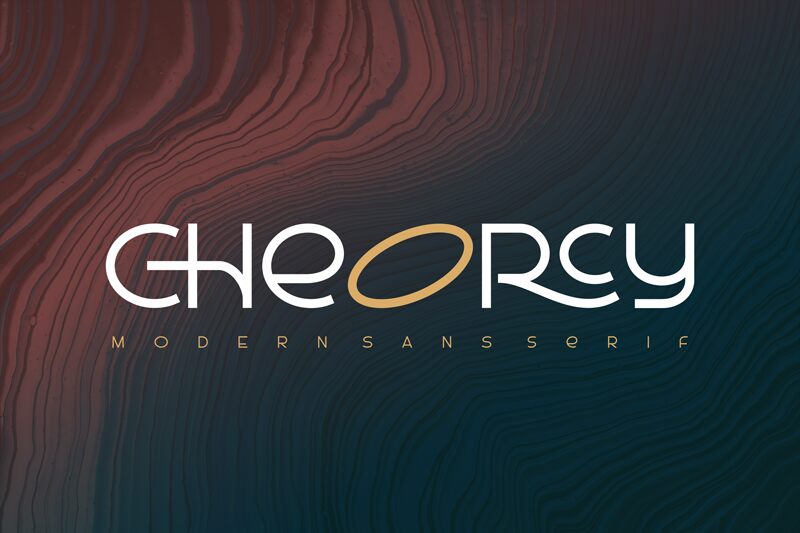
Cheorcy
Introducing Cheorcy, a modern and wide serif font designed by Riyadh Rahman. Its light weight makes it ideal for creating stunning and timeless logos, headers, titles and large-scale graphics. It can also be used to make beautiful wedding invitations, magazines or posters.